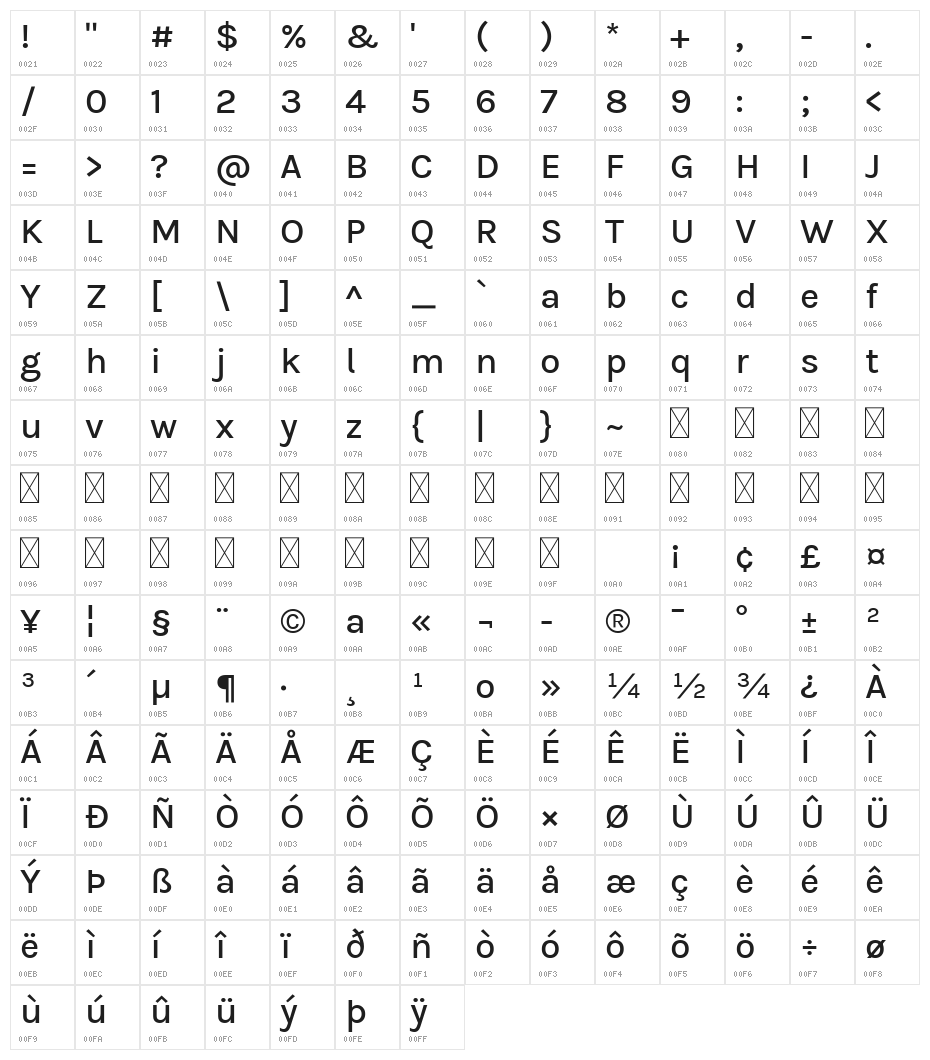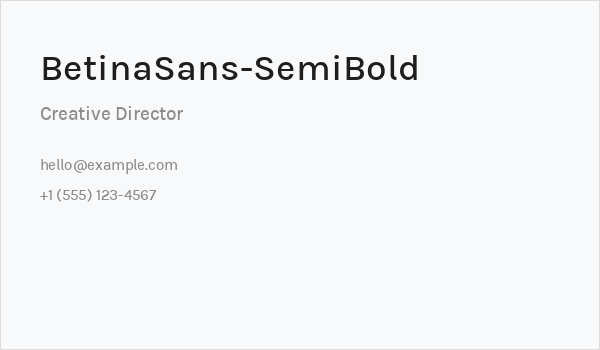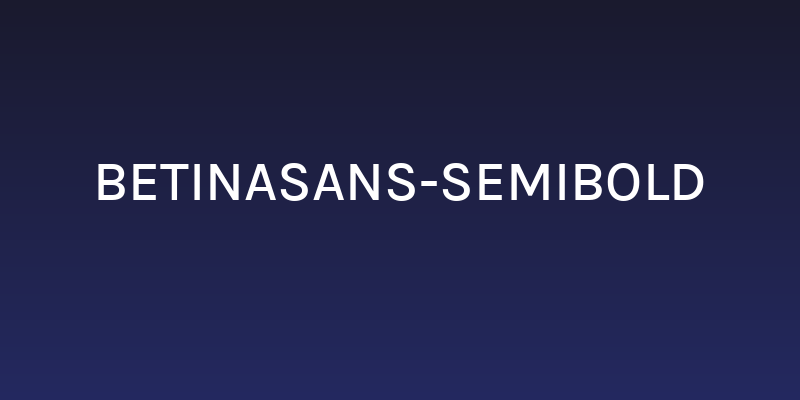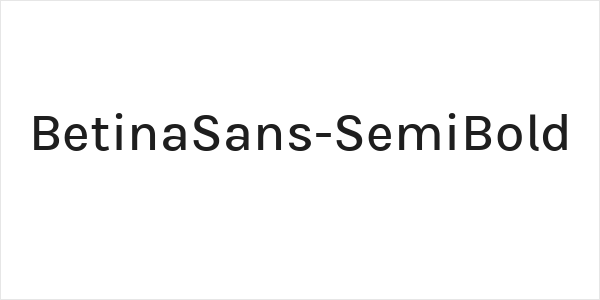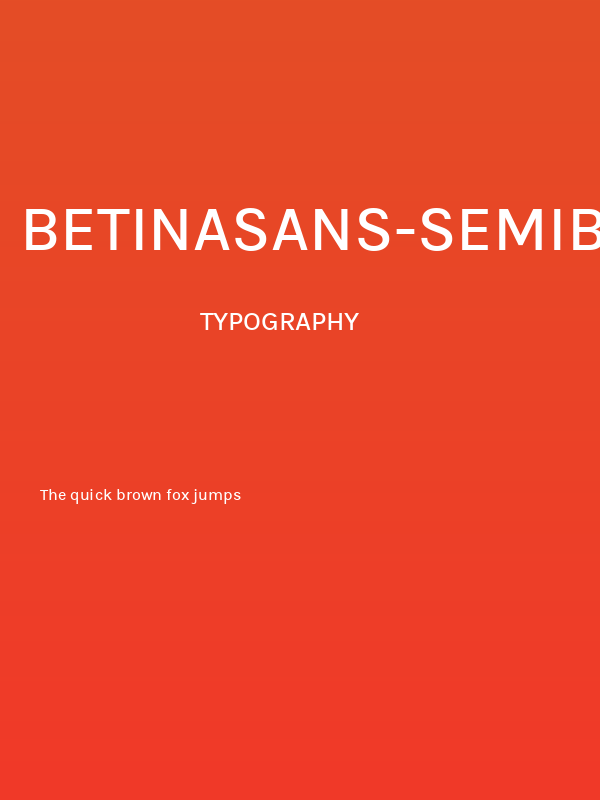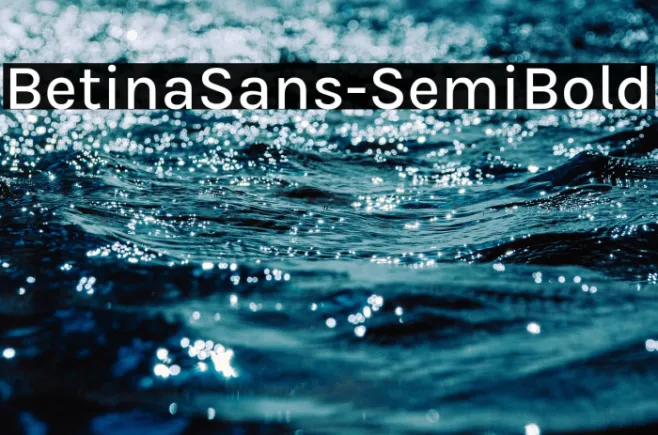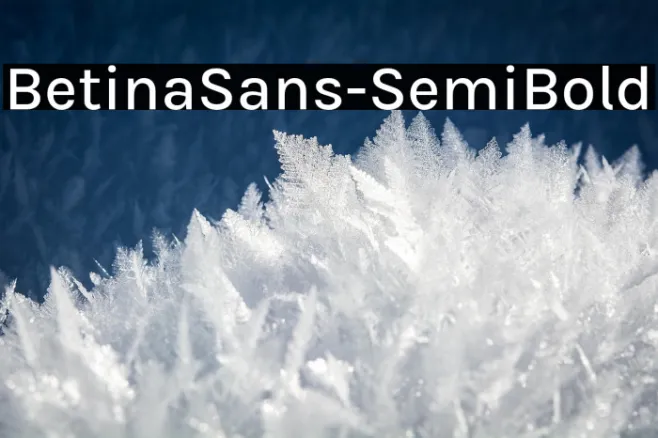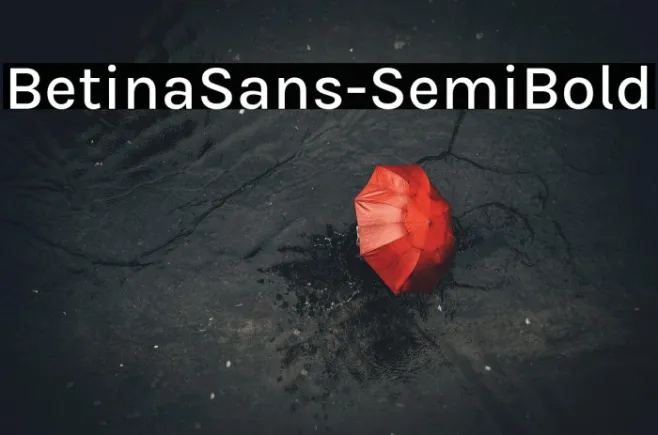
BetinaSans-SemiBold Font
✎ Sans Serif
BetinaSans-SemiBold Description
This font features a clean and modern sans-serif style with a semi-bold weight that provides a strong presence while maintaining readability. The characters are well-proportioned with a uniform stroke width, giving it a balanced and harmonious appearance. The uppercase letters are slightly taller than the lowercase, which are rounded and open, enhancing legibility. The numerals are clear and distinct, making them suitable for various applications. Special characters are designed with simplicity, ensuring they blend seamlessly with the rest of the typeface.
| Use Case | Headlines, Body text, Logos |
| Proposed Projects | Ideal for branding, web design, advertising, and editorial projects where clarity and modernity are essential. |